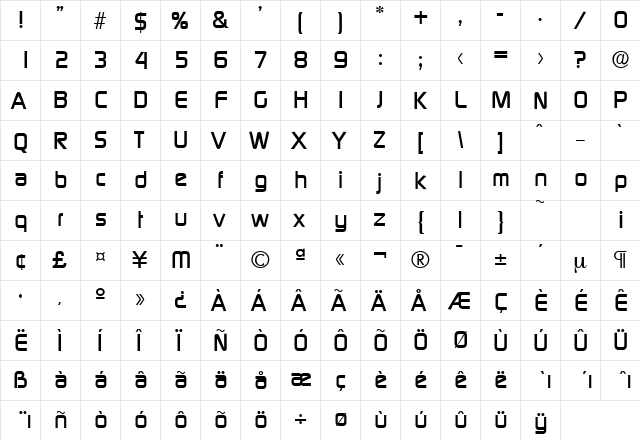
Digital-Serial Bold
Design Context for Digital-Serial Typeface
Digital-Serial has a distinctly futuristic character, with geometric precision and clean angles that feel at home in technology, gaming, and sci-fi contexts. The heavy weight commands attention and anchors typographic hierarchies.
Pro Tip: Try Digital-Serial with generous letter-spacing in UI labels and navigation — the geometric forms benefit from room to breathe.